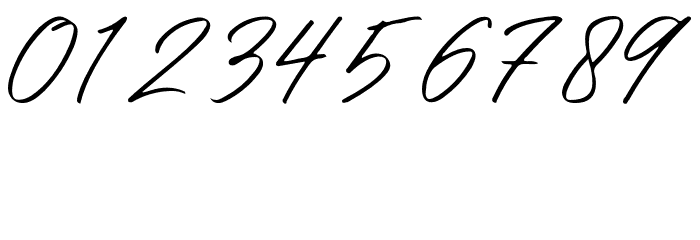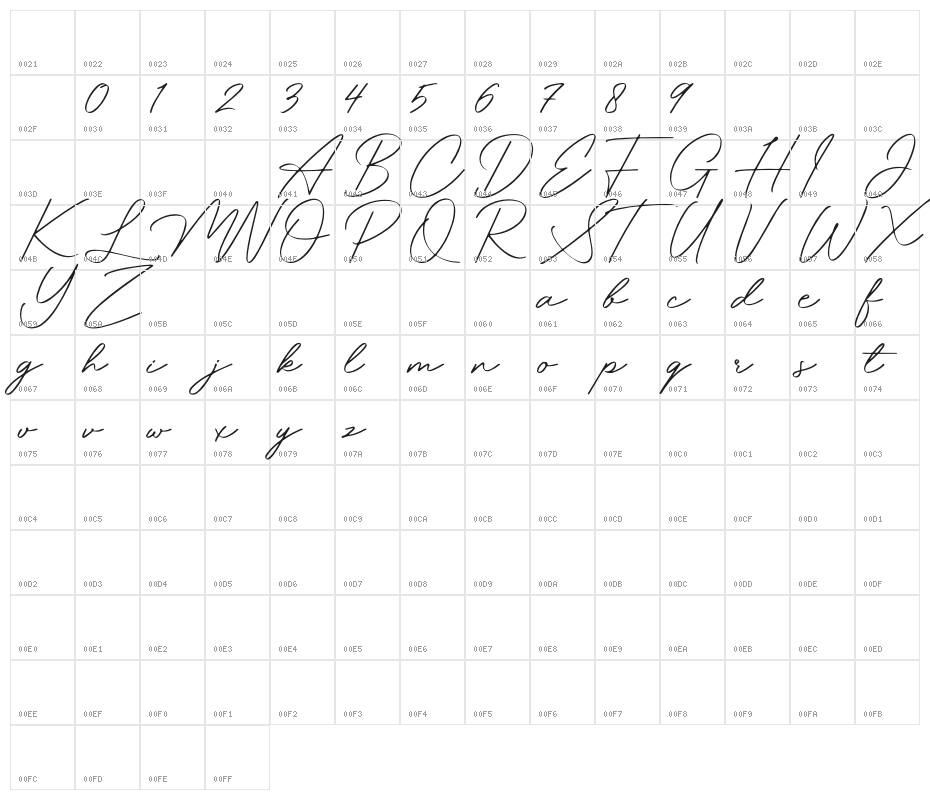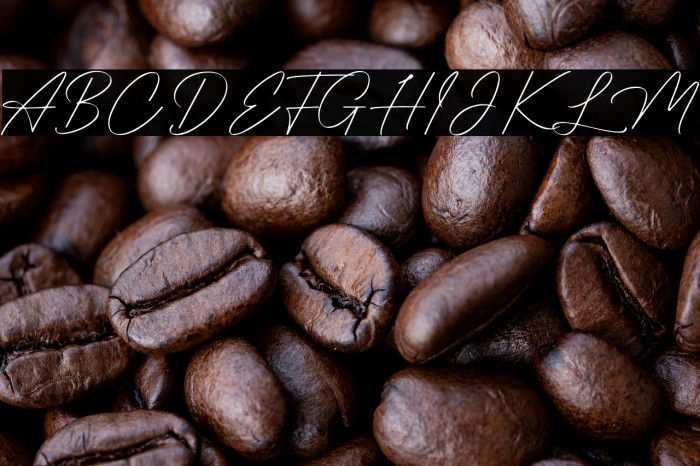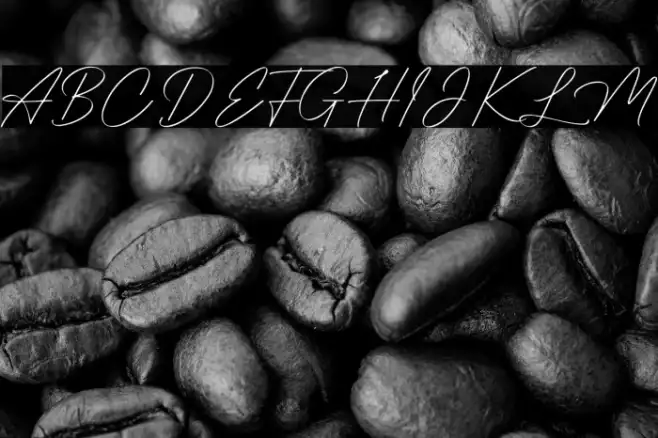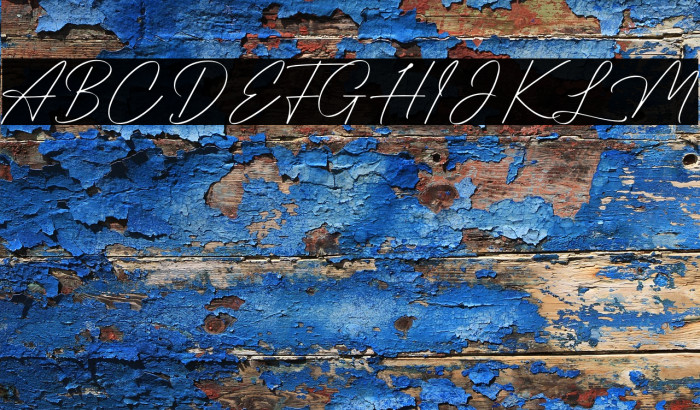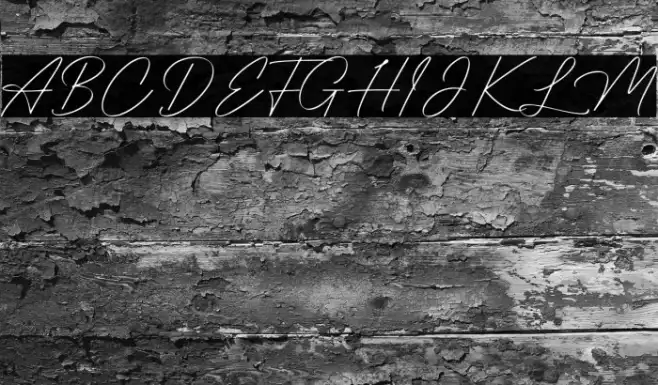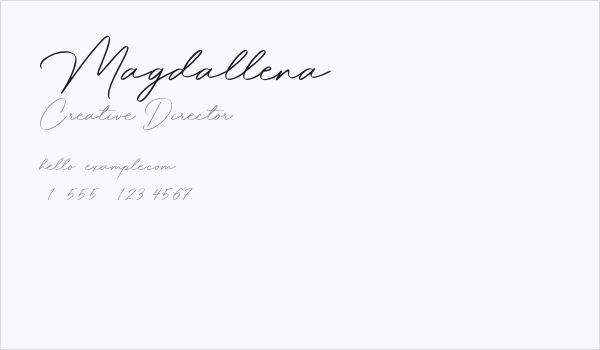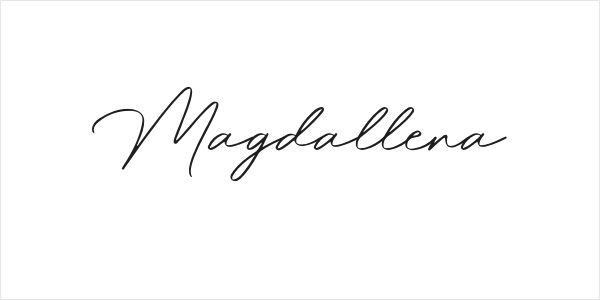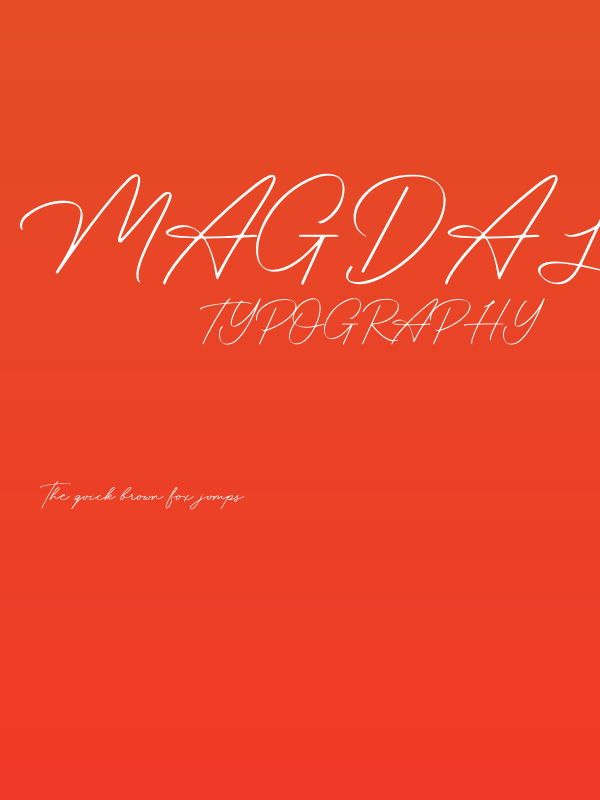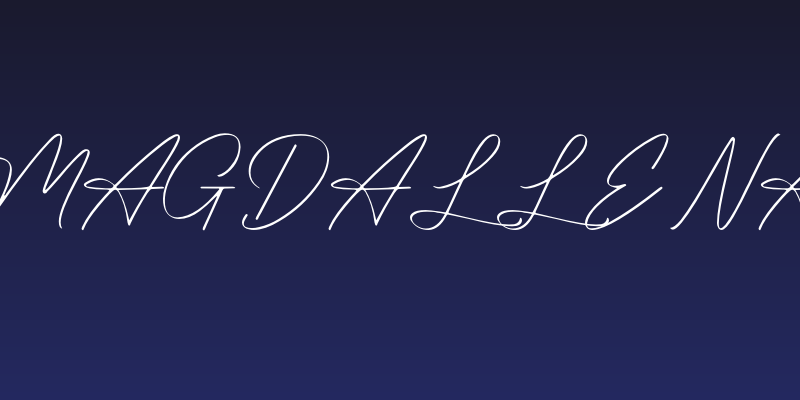
Magdallena Font
Magdallena Description
This elegant script font features a fluid and graceful style, characterized by its smooth, flowing lines and delicate curves. The uppercase letters exhibit a sophisticated flair with extended strokes, while the lowercase letters maintain a consistent rhythm, enhancing readability. The numerals are designed with a similar elegance, ensuring uniformity across the typeface. This font's handwritten appearance adds a personal touch, making it suitable for projects that require a touch of sophistication and warmth. The special characters are seamlessly integrated, maintaining the overall aesthetic of the font.
| Proposed Projects | Ideal for wedding invitations, greeting cards, branding, and elegant packaging designs. |